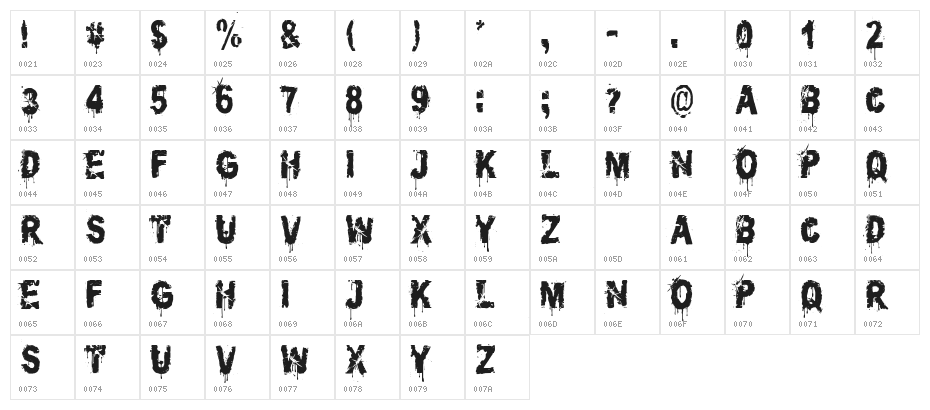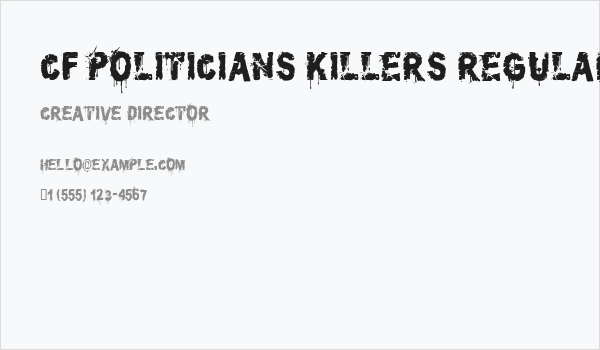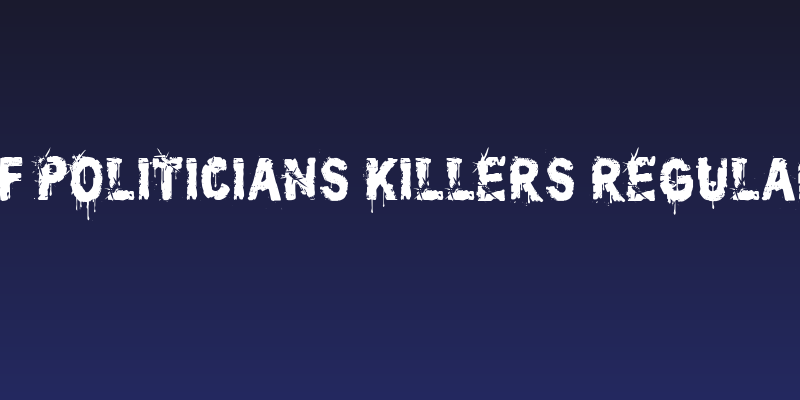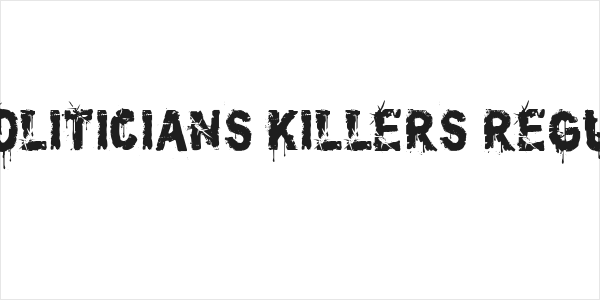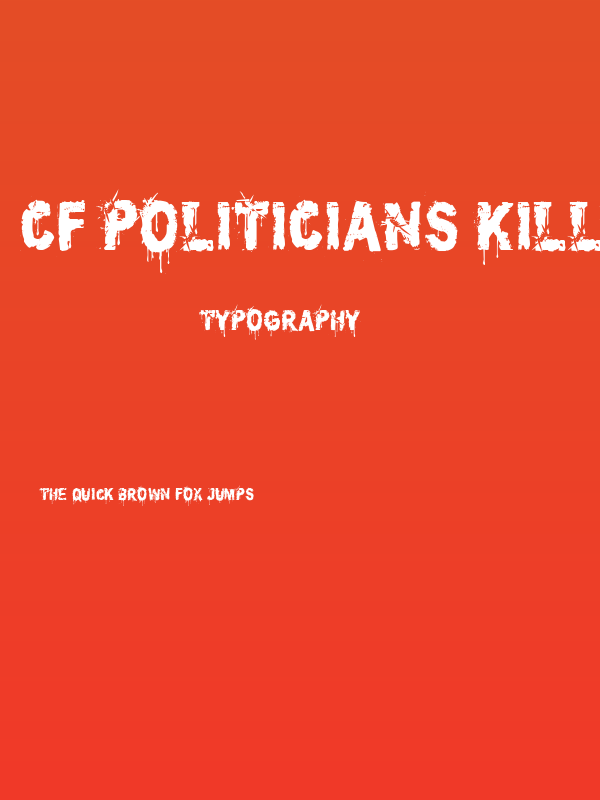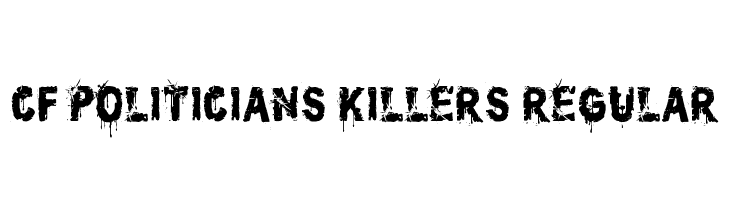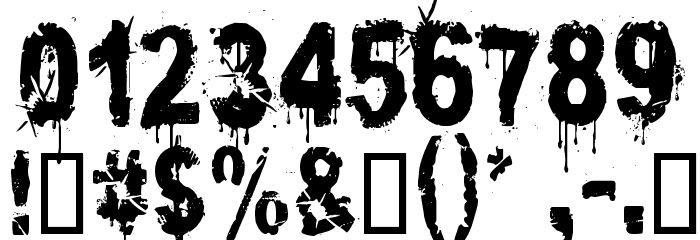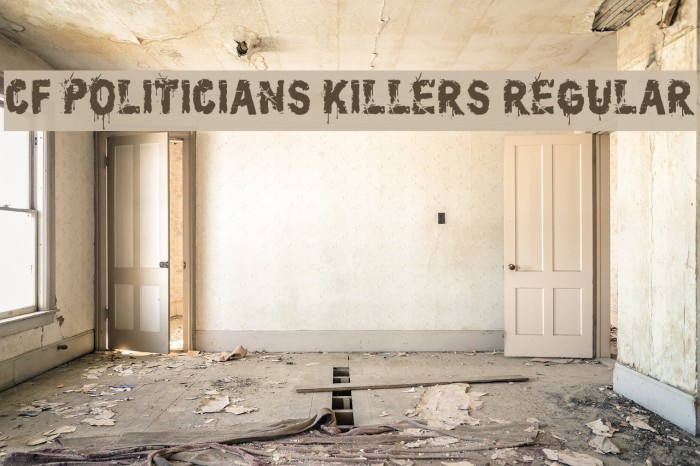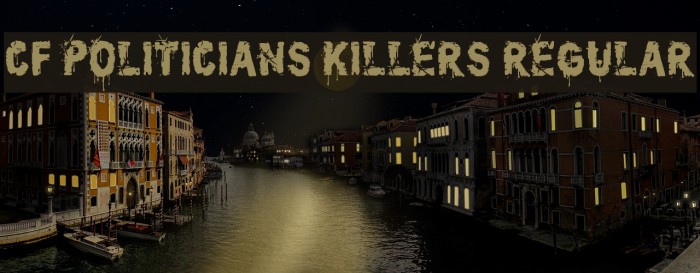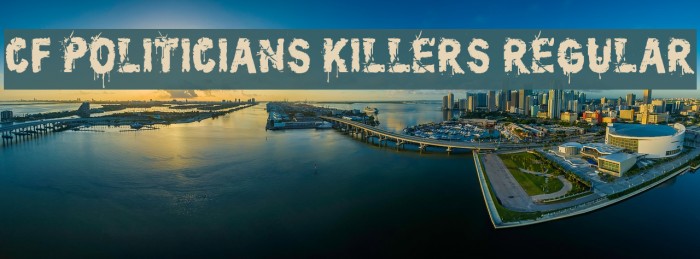
CF Politicians Killers Regular Font
CF Politicians Killers Regular Description
This font features a gritty, distressed style with a grunge aesthetic. Each character appears as if it has been spray-painted or stenciled, with drips and splatters adding to its chaotic and rebellious look. The bold, blocky letters are irregular and rough around the edges, giving them an edgy, urban feel. The font is highly decorative and makes a strong visual impact, suitable for designs that require a raw, unconventional appearance. Its unique style is reminiscent of street art and graffiti, making it ideal for projects that aim to convey a sense of rebellion or nonconformity.
| Overall Style | Grunge, Urban, Rebellious |
| Proposed Projects | Album covers, streetwear branding, event posters, urban-themed artwork. |